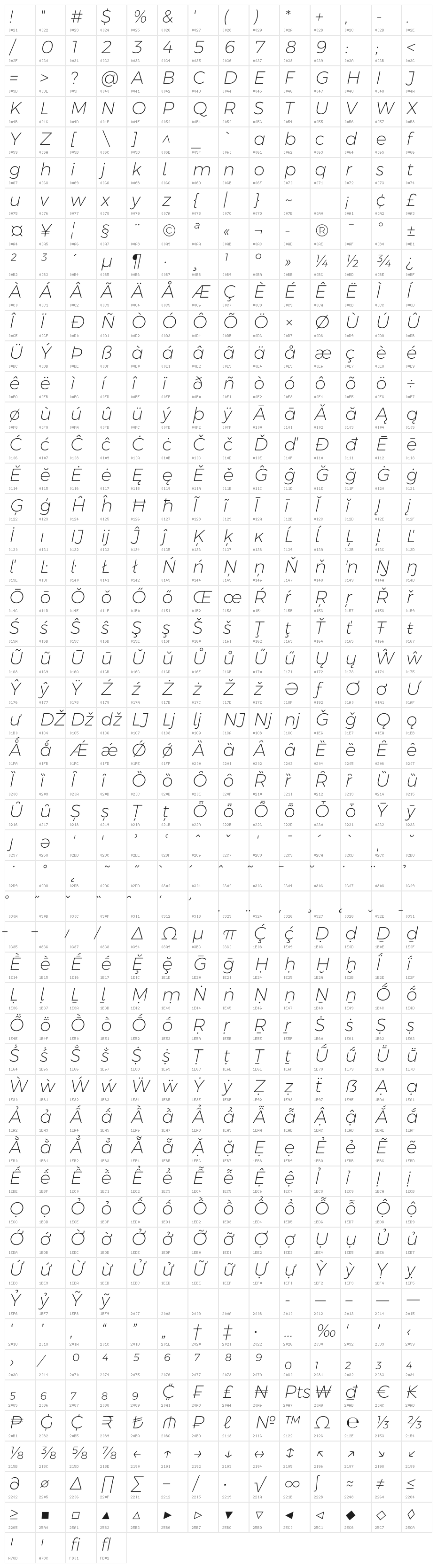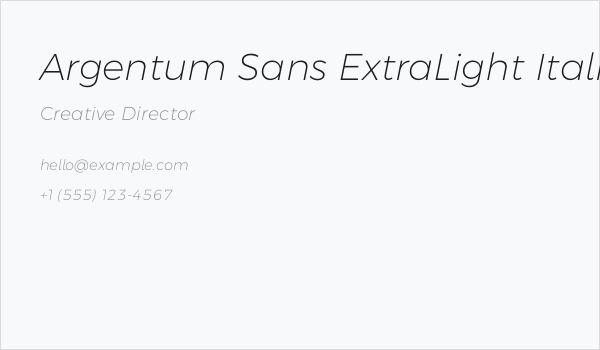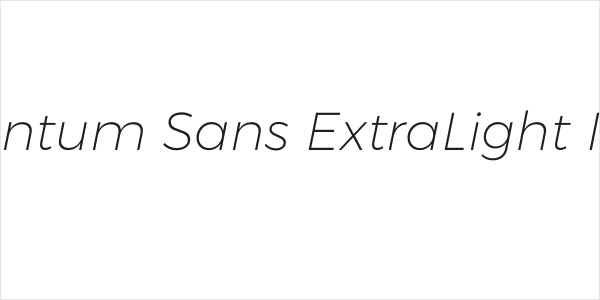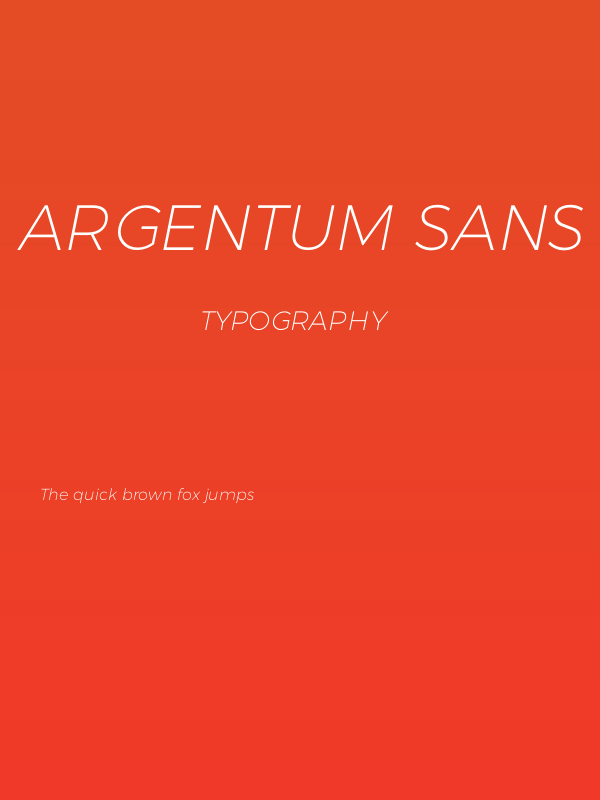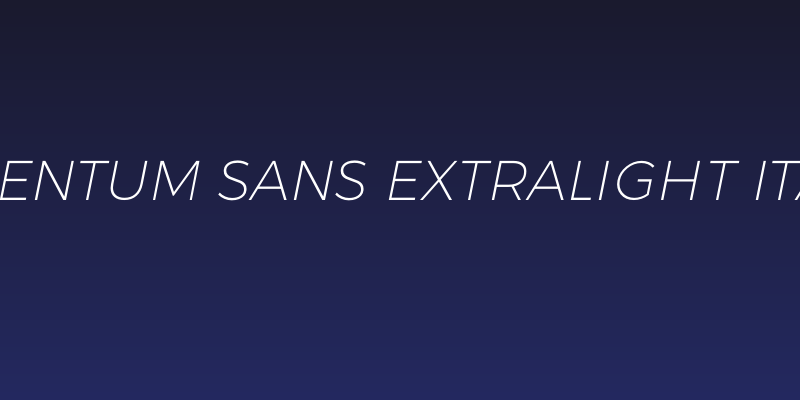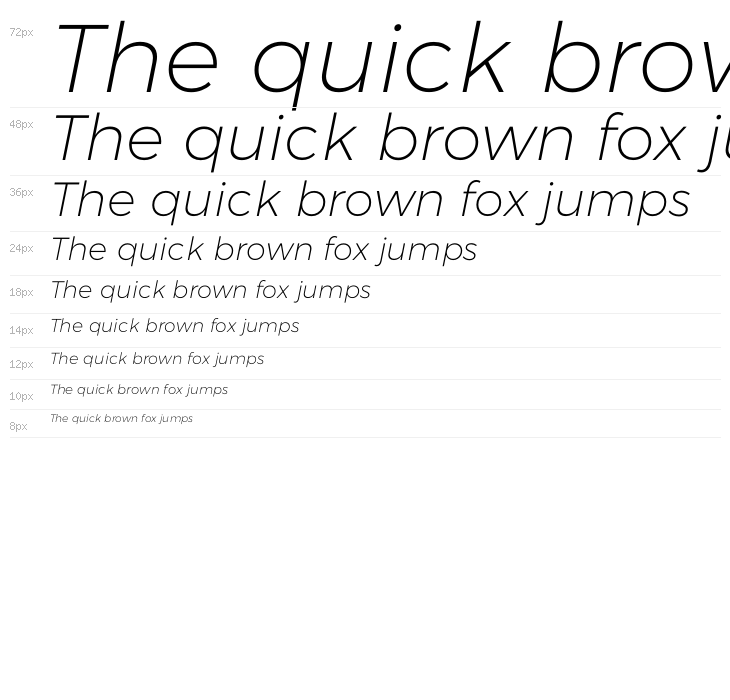
Argentum Sans ExtraLight Italic Font
Argentum Sans ExtraLight Italic Description
This font exudes a sleek and modern aesthetic with its extra light weight and italic style. The characters are elegantly elongated, providing a sense of fluidity and motion. The sans-serif design ensures a clean and uncluttered appearance, making it highly readable. The uniform stroke width contributes to its minimalist appeal, while the slight slant adds a dynamic touch. Its simplicity is enhanced by the absence of any decorative elements, focusing on clarity and precision. The font's airy feel is achieved through generous spacing between characters, which enhances its legibility and elegance.
| Proposed Projects | Ideal for modern branding, minimalist design projects, fashion magazines, and digital interfaces. |